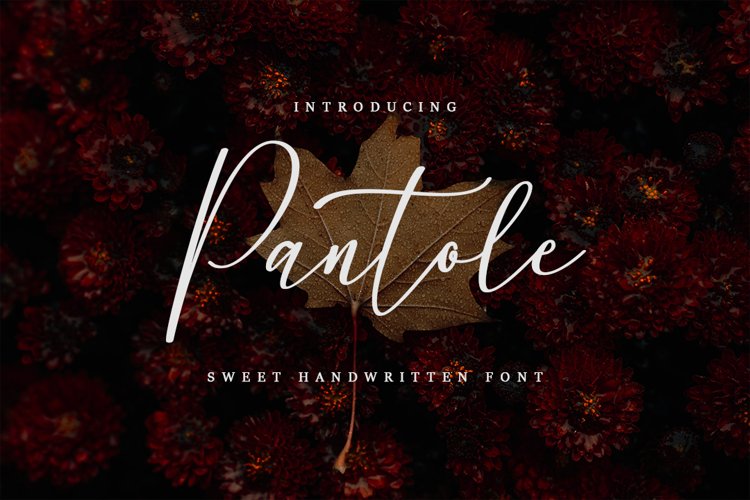
Hi everyone introducing my newest font it's called Pantole
Pantole is a sweet handwritten font that is made with a beautiful and eye-catching shape, perfect for your design needs such as mockups, logos, business cards, and any form of work you need. Hope you like and enjoy it!